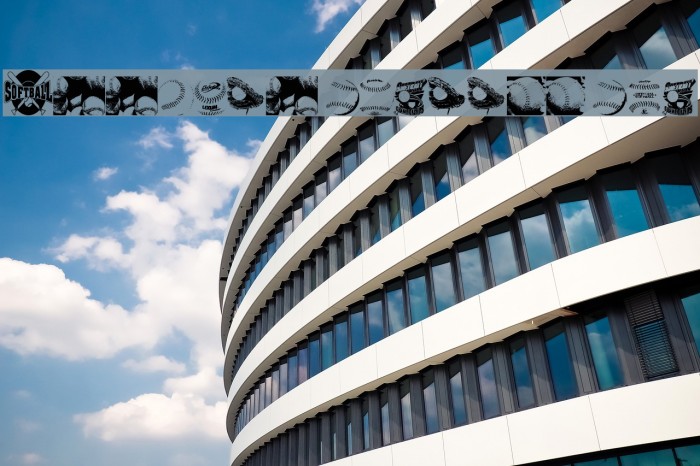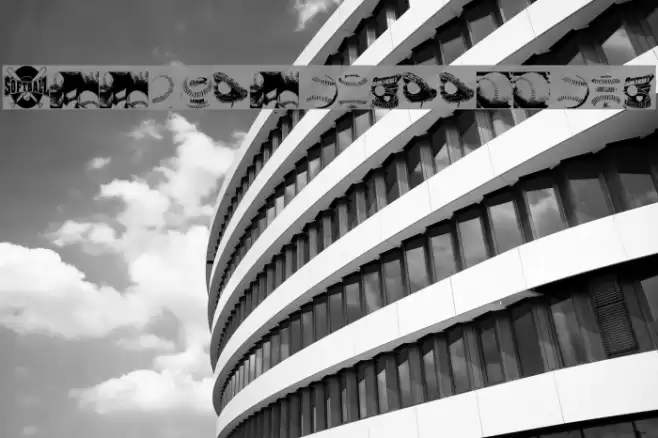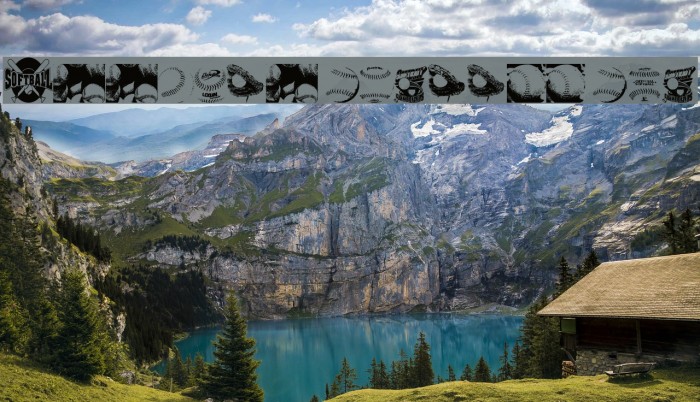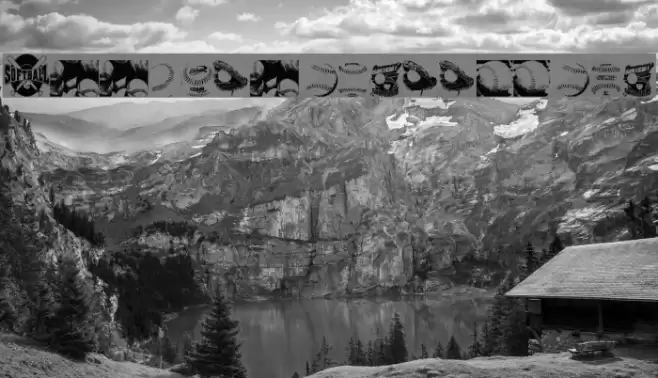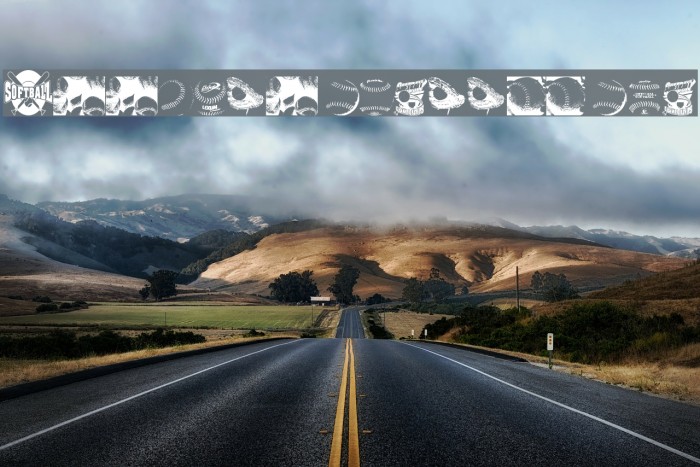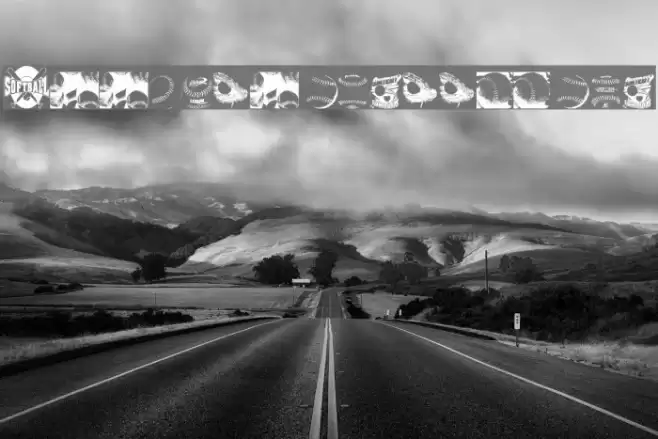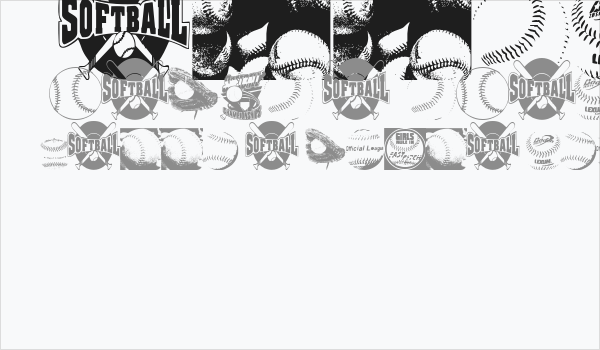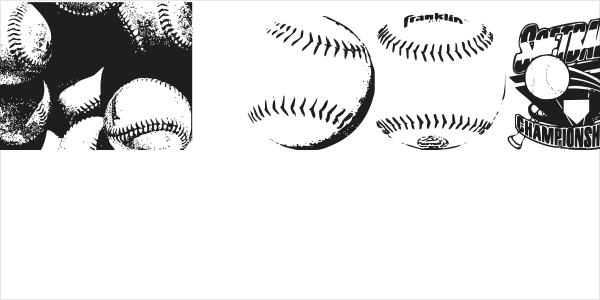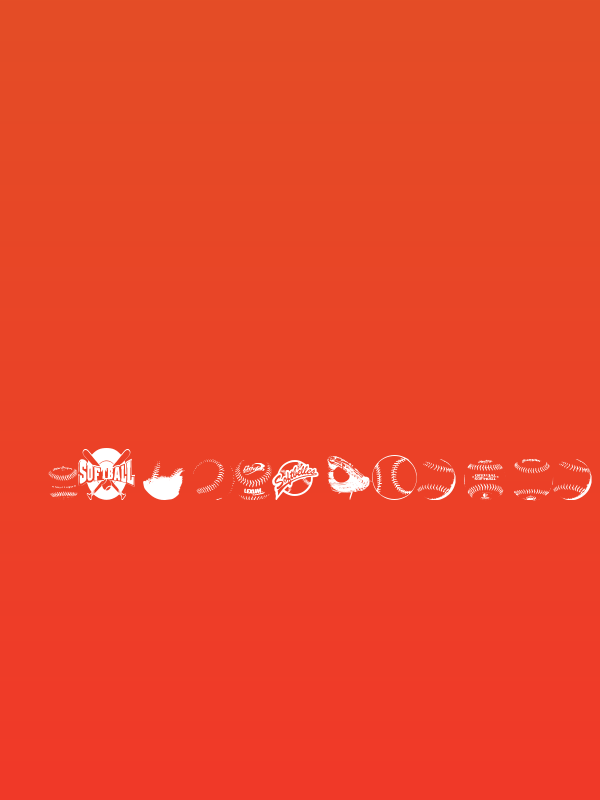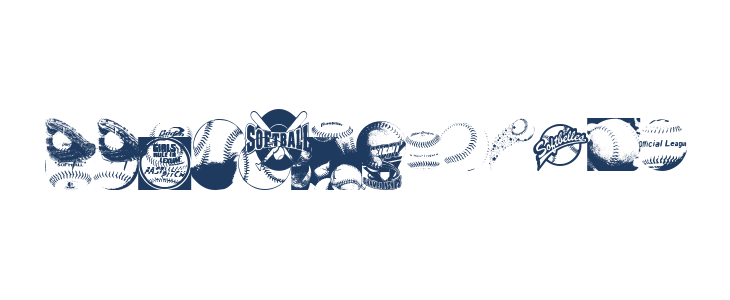
Jessica's Softball Font Font
Jessica's Softball Font Description
This is not a traditional font but rather a collection of softball-themed graphics and icons. Each character is represented by a unique softball-related image, such as gloves, balls, and logos. The images are detailed and varied, capturing different aspects of the sport. This collection is more suited for decorative purposes rather than text-based applications, as it does not follow the standard alphabetic or numeric structure.
| Use Case | Logos, Decorative elements |
| Proposed Projects | Ideal for sports-themed designs, event posters, team logos, or merchandise related to softball. |